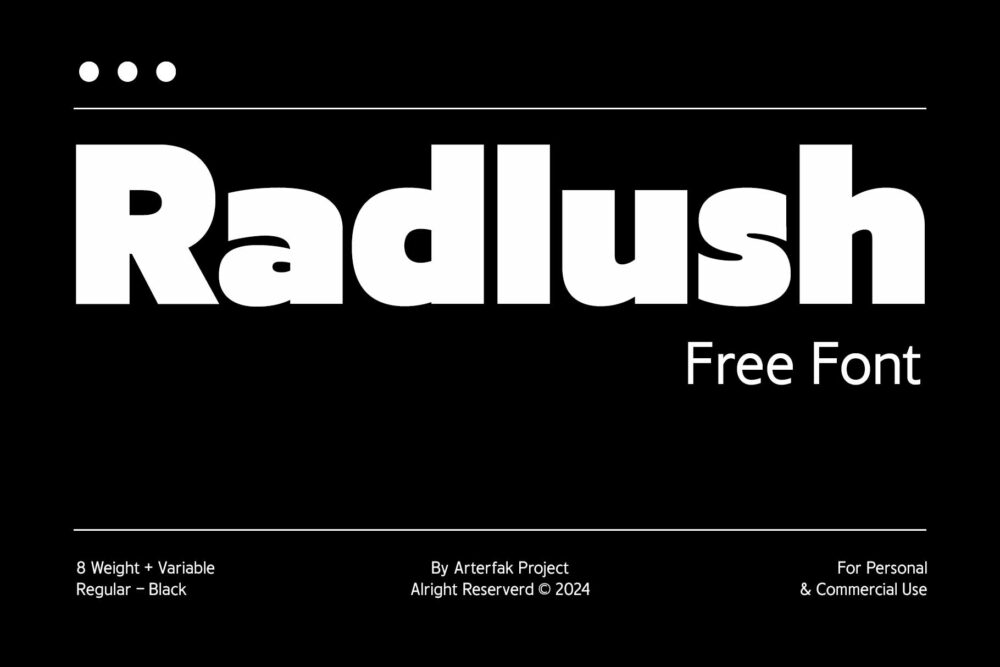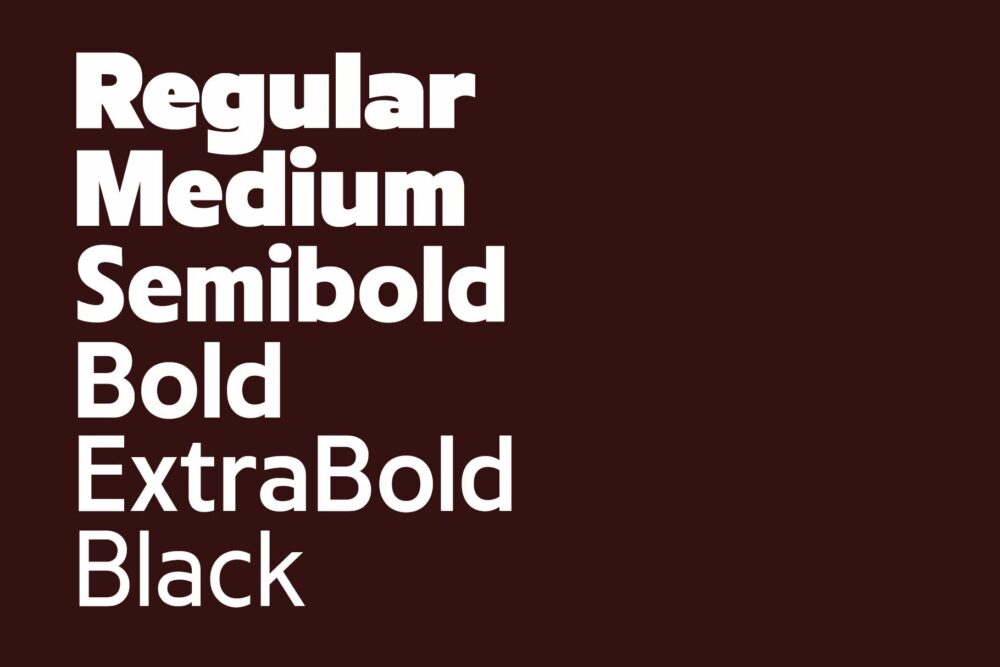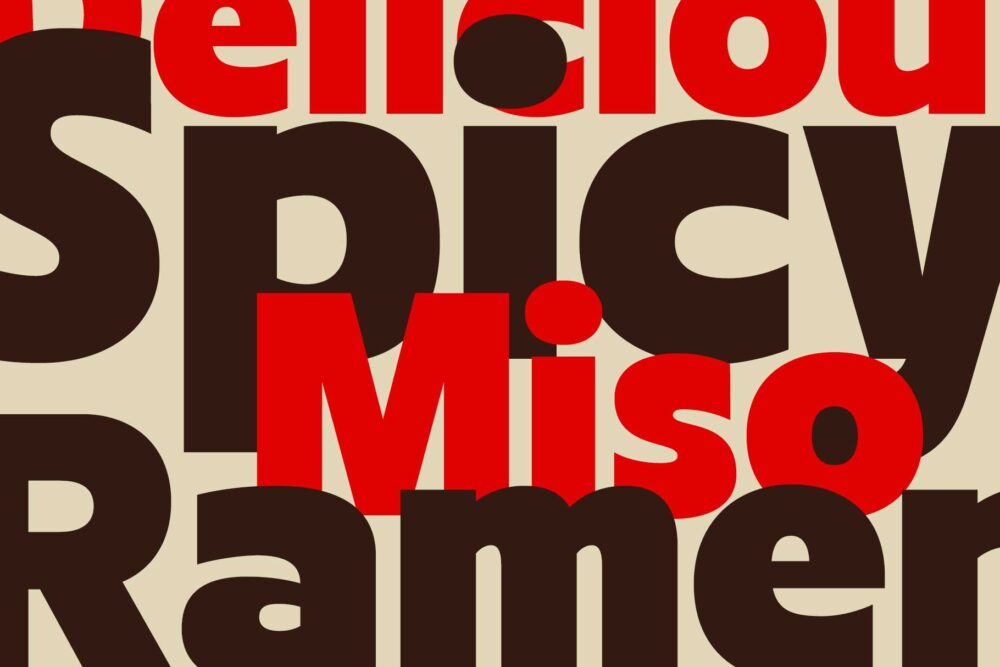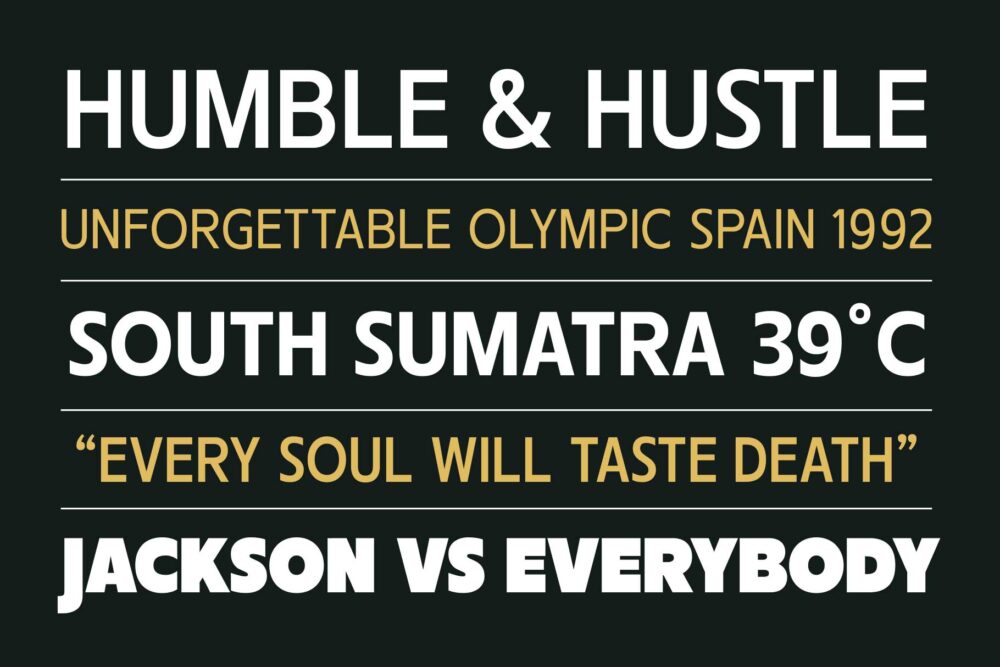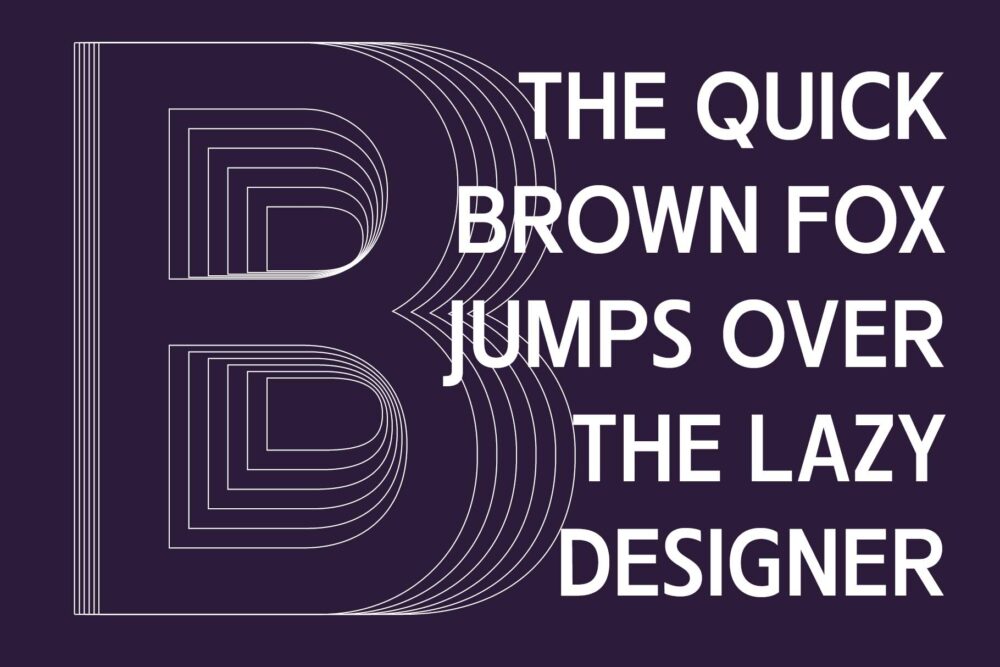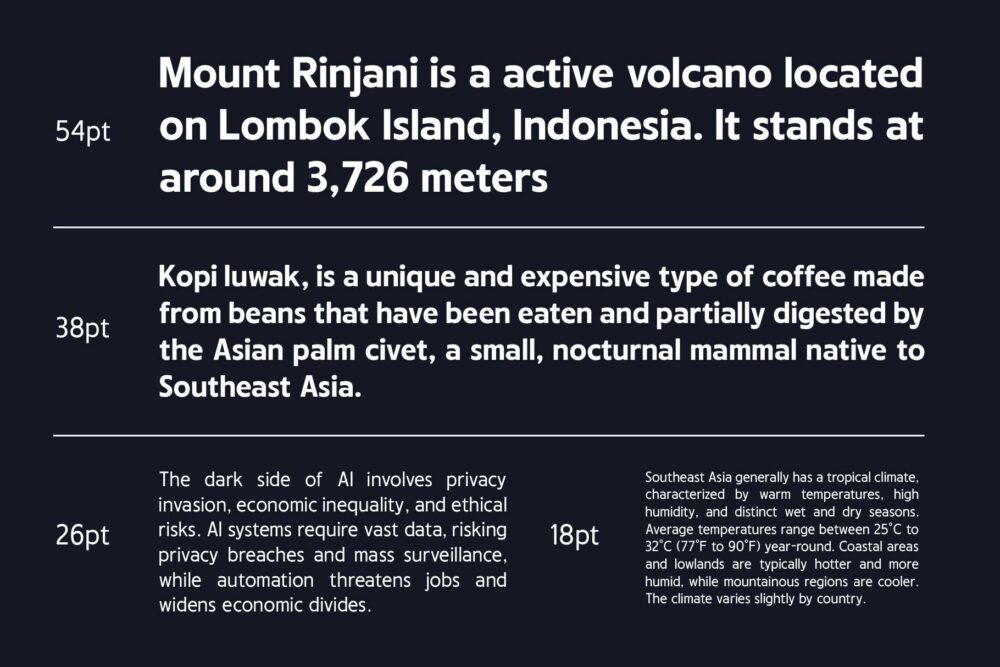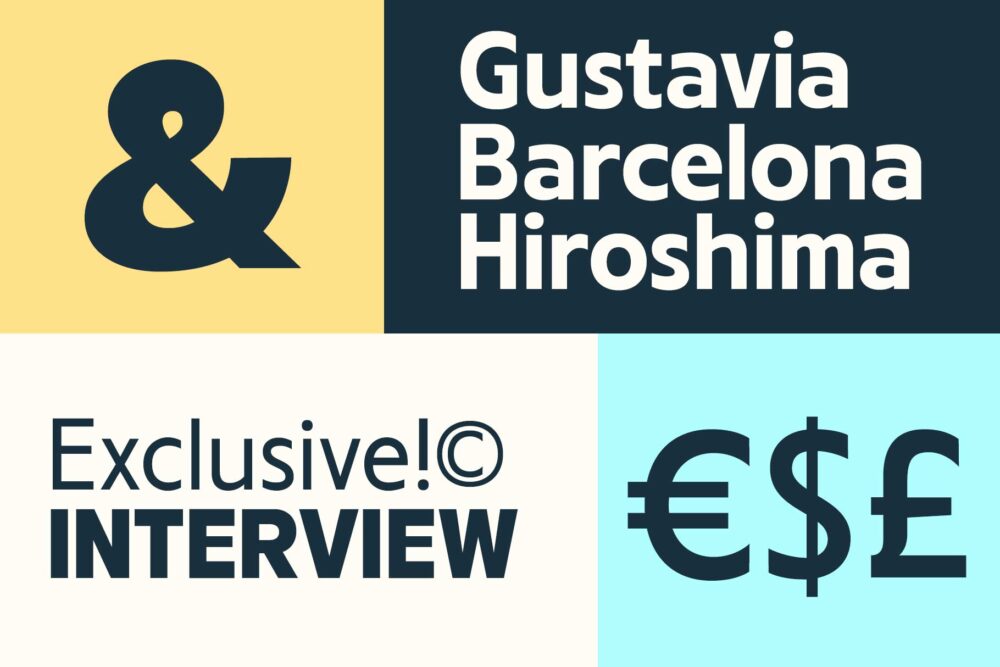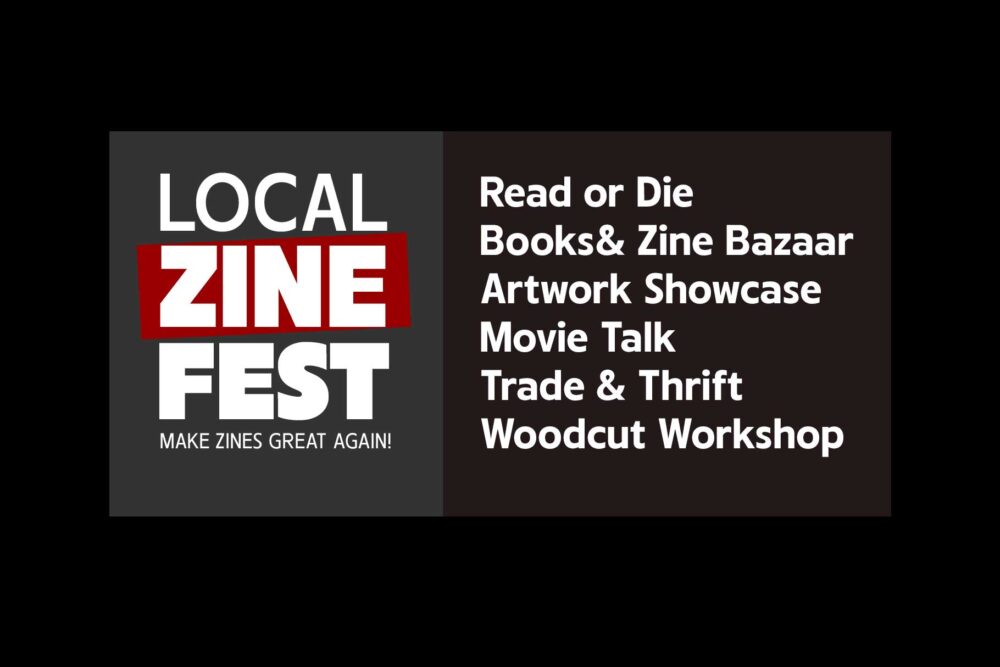
Radlush is a unique display sans-serif font.
Featuring a distinctive transition from Regular to Black, Radlush showcases natural strokes and unique twists, especially in its bolder styles. This semi-decorative typeface has a retro feel and is available in six weights, making it perfect for displays, sub-headlines, logos, short body text, and more.